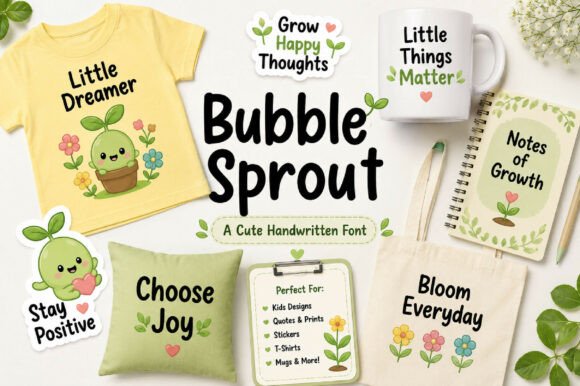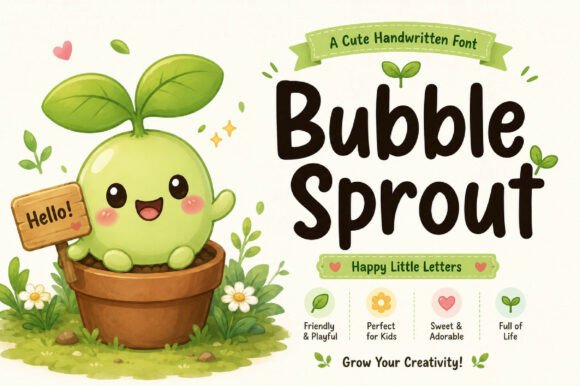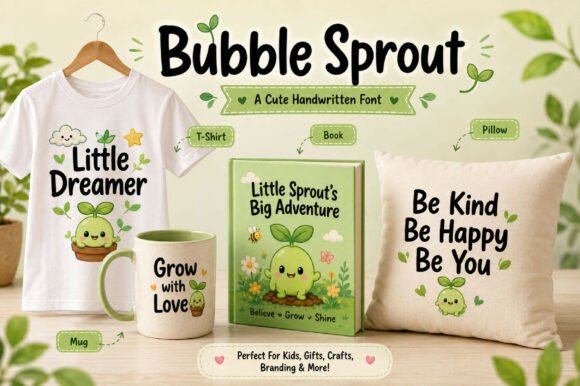
Bubble Sprout is a fun and friendly handwritten display font designed with soft curves, rounded shapes, and a cheerful personality.
Its bubbly letterforms create a warm and playful look that instantly adds charm to any design With its casual hand-drawn style, Bubble Sprout is perfect for projects that need a cute, youthful, and creative feel.